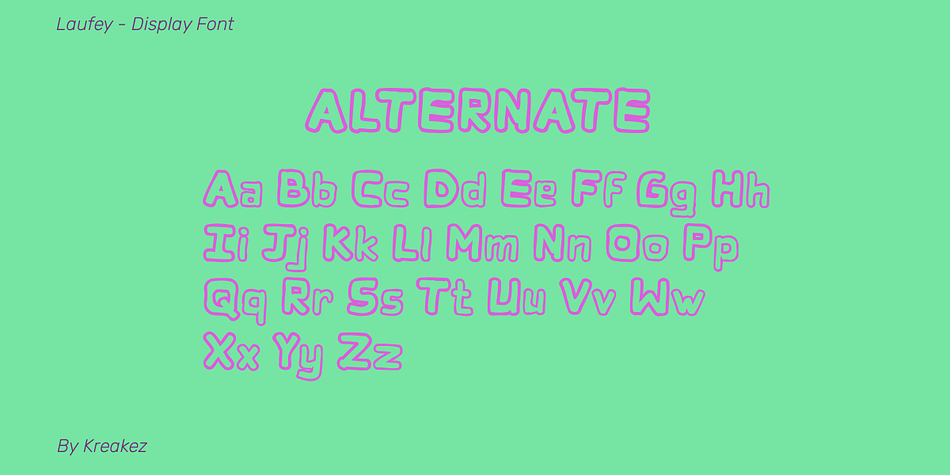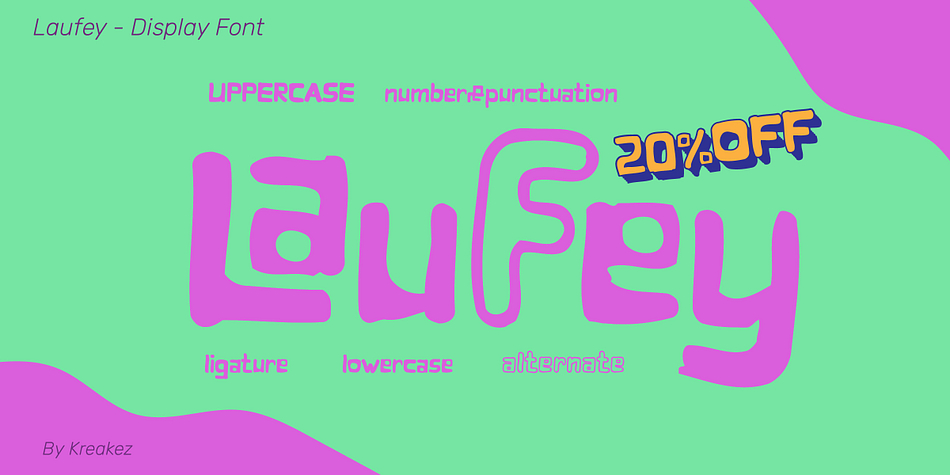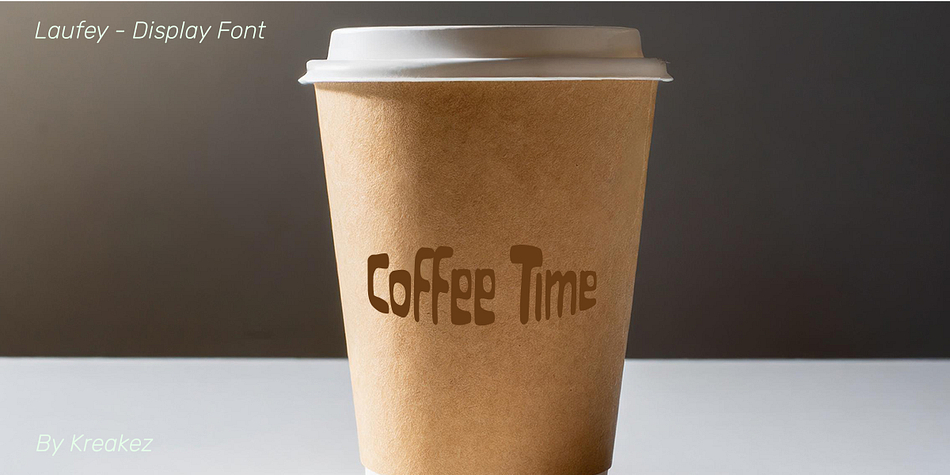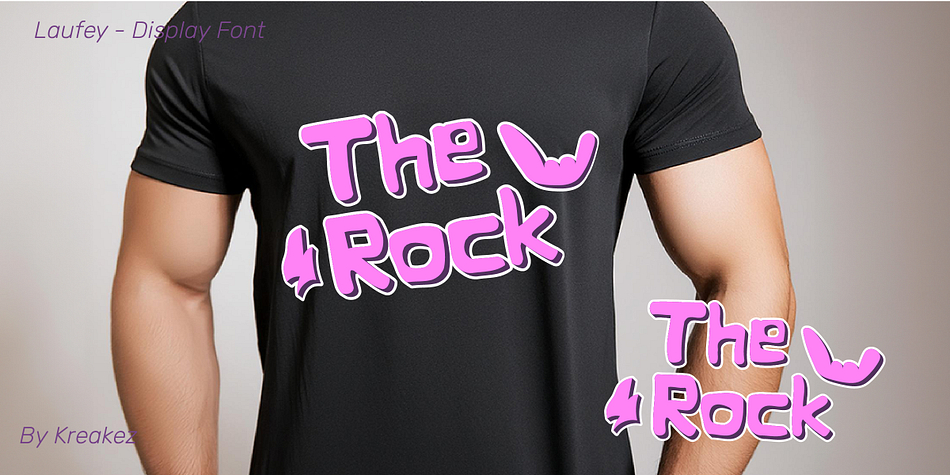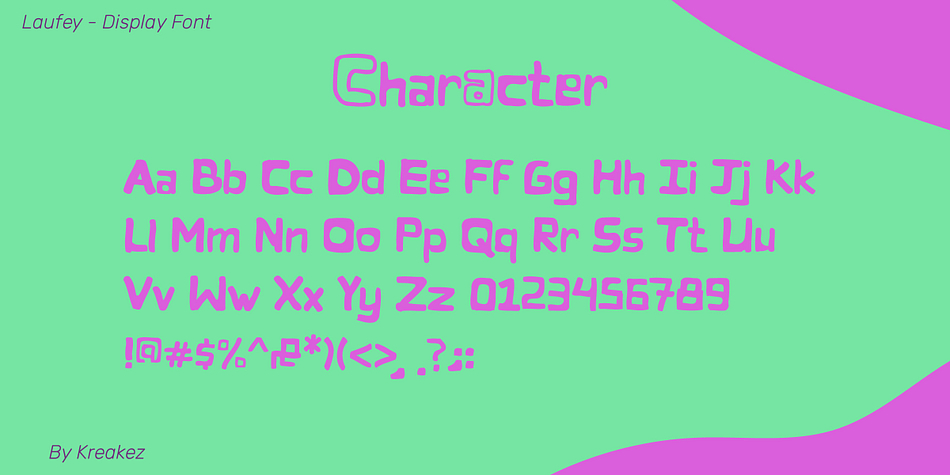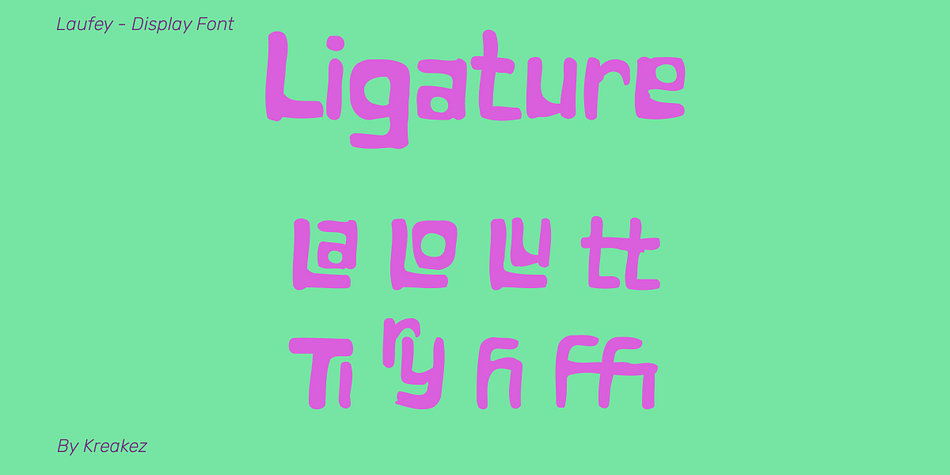
Laufey
Laufey is a brush display font family published by Zaidan Ramadan Ilyas.
Introducing Laufey, a bold and playful display font designed to bring energy and creativity to your projects! With its unique and rounded letterforms, Laufey is perfect for making a statement in any design. This font offers a variety of features, including uppercase and lowercase characters, ligatures for smoother text flow, and alternates for added stylistic flexibility. Whether you’re designing for a youthful brand, crafting eye-catching merchandise, or creating dynamic visuals, Laufey has everything you need to stand out. Its vibrant, bold style is ideal for projects like posters, t-shirts, logos, and more, giving your work a fun and memorable touch. Bring your designs to life with Laufey – the font that adds character to any creative endeavor!
Style Brush Display